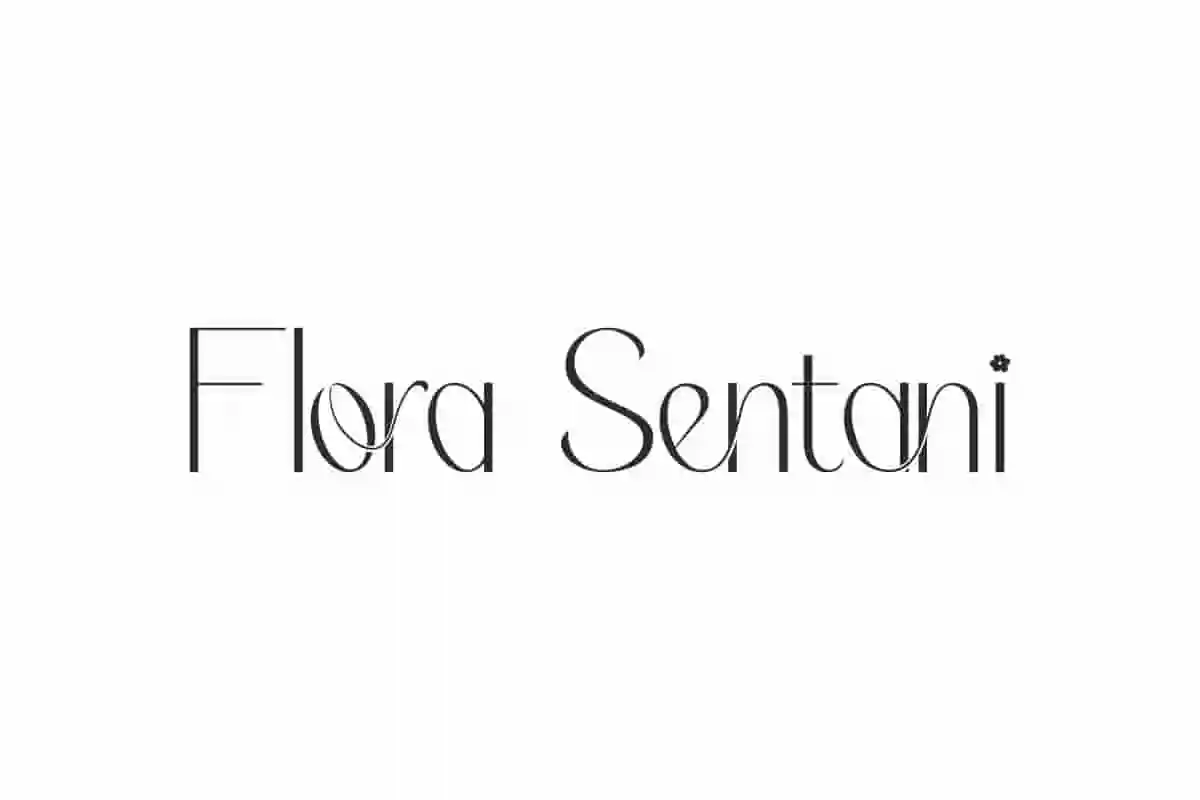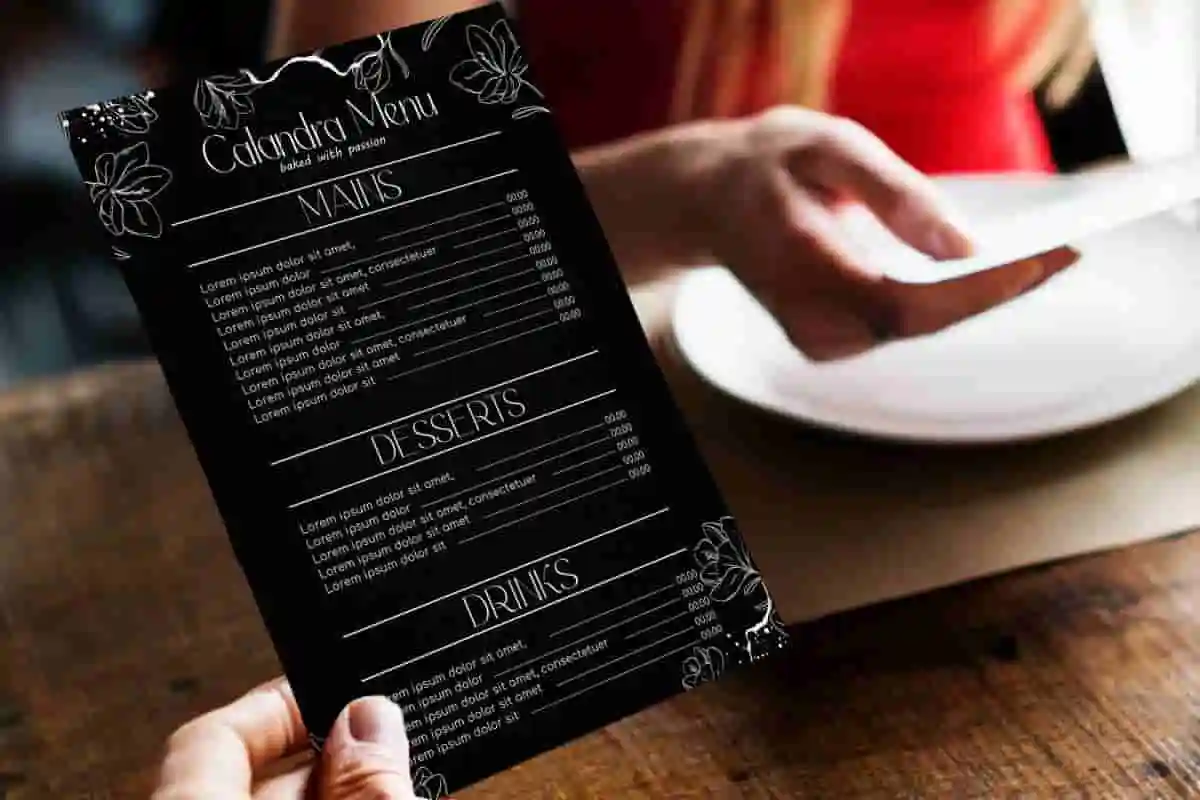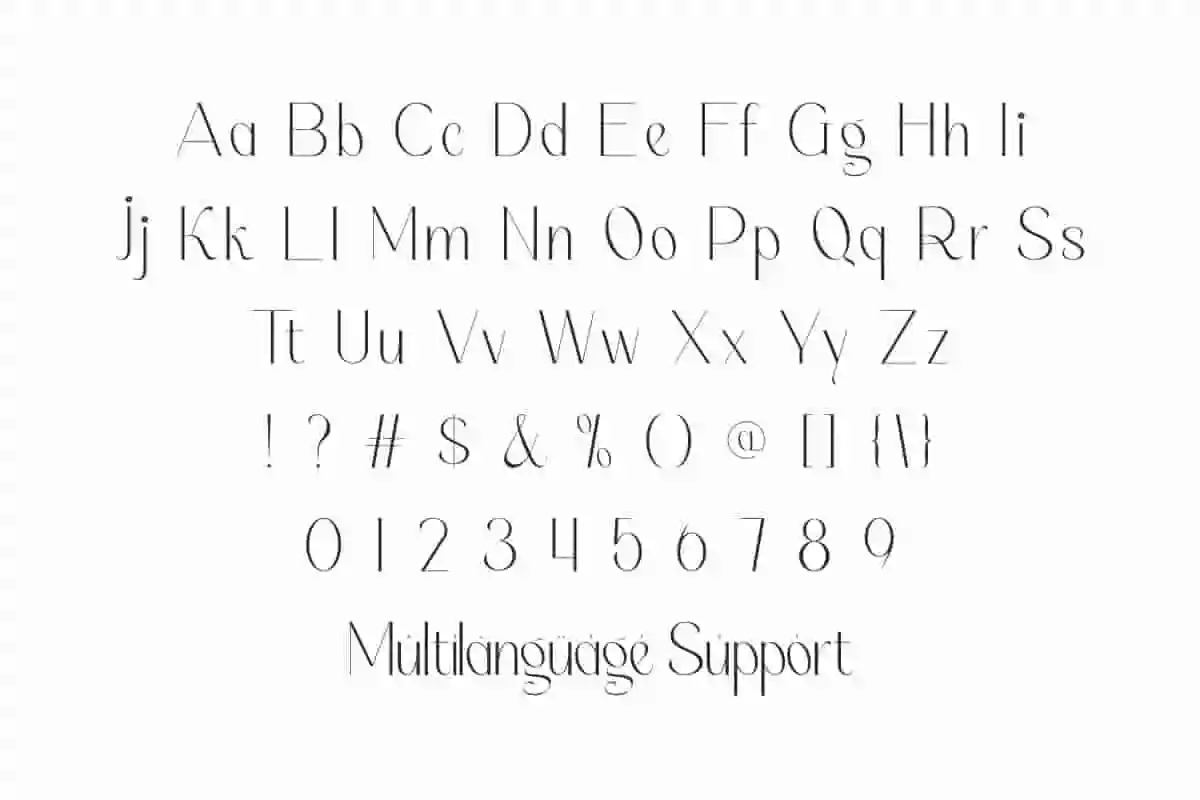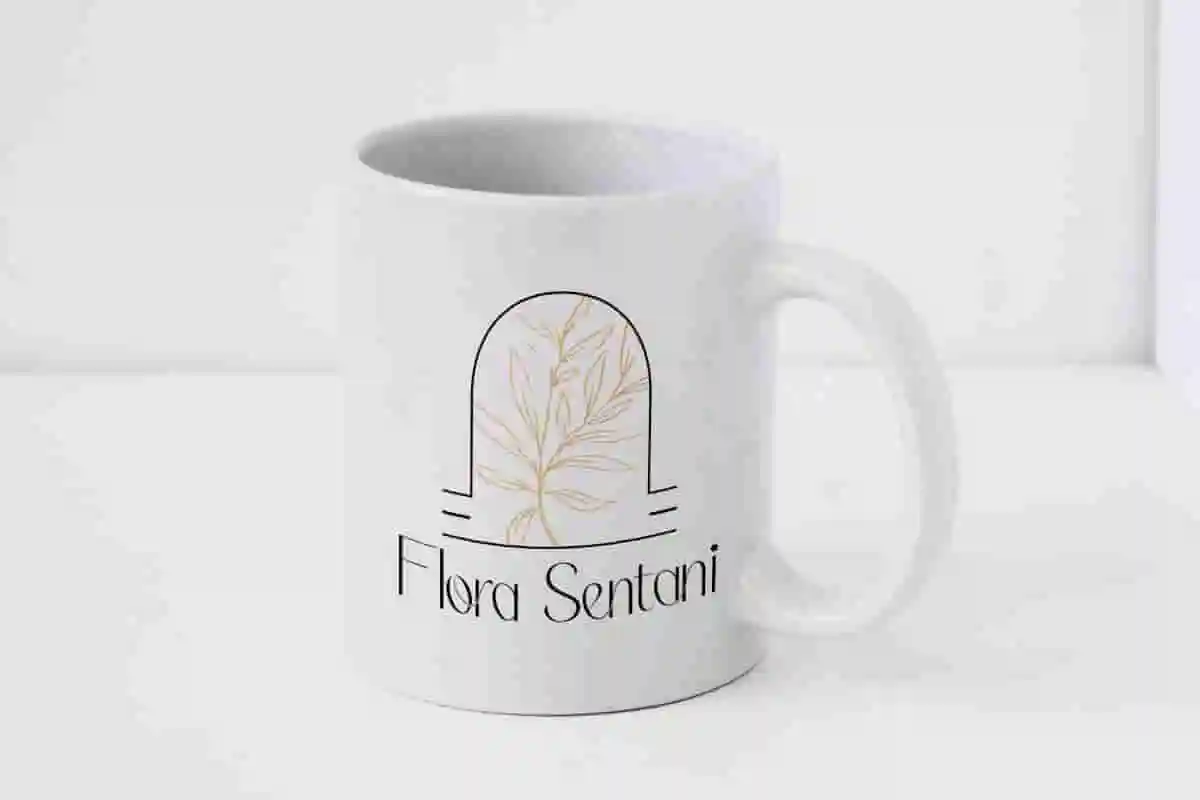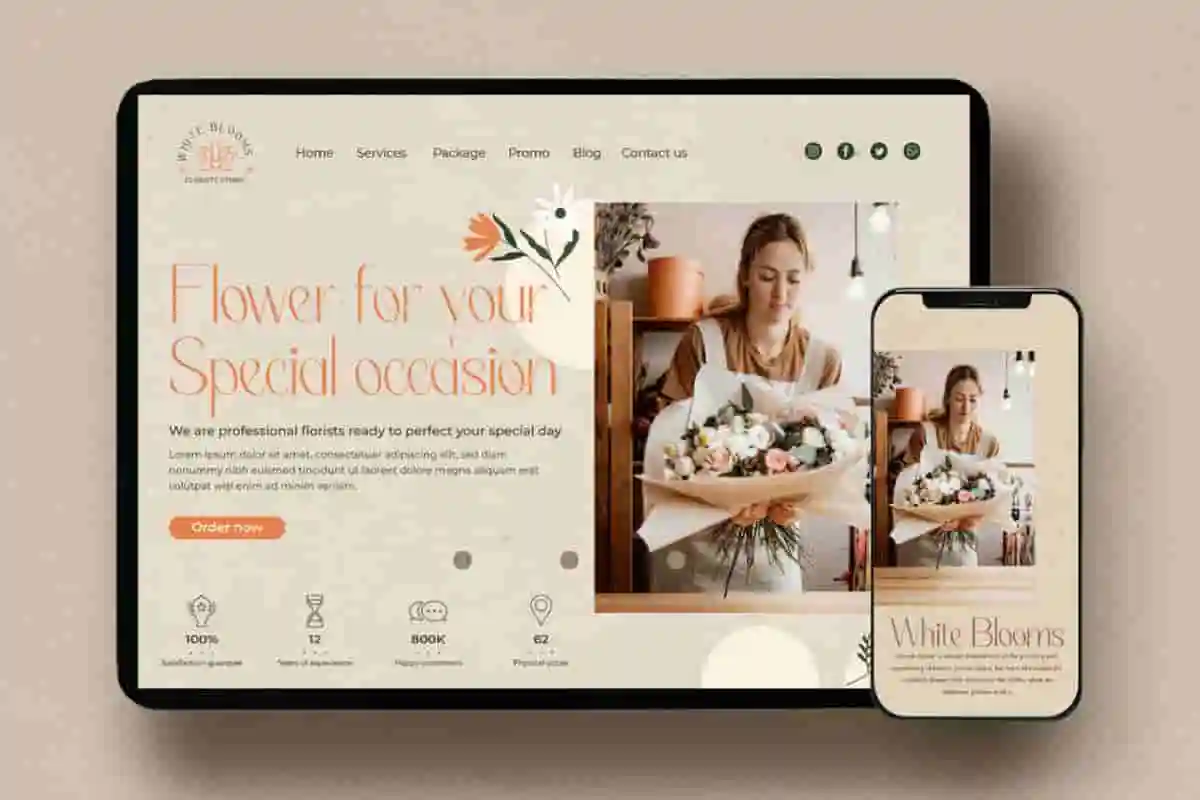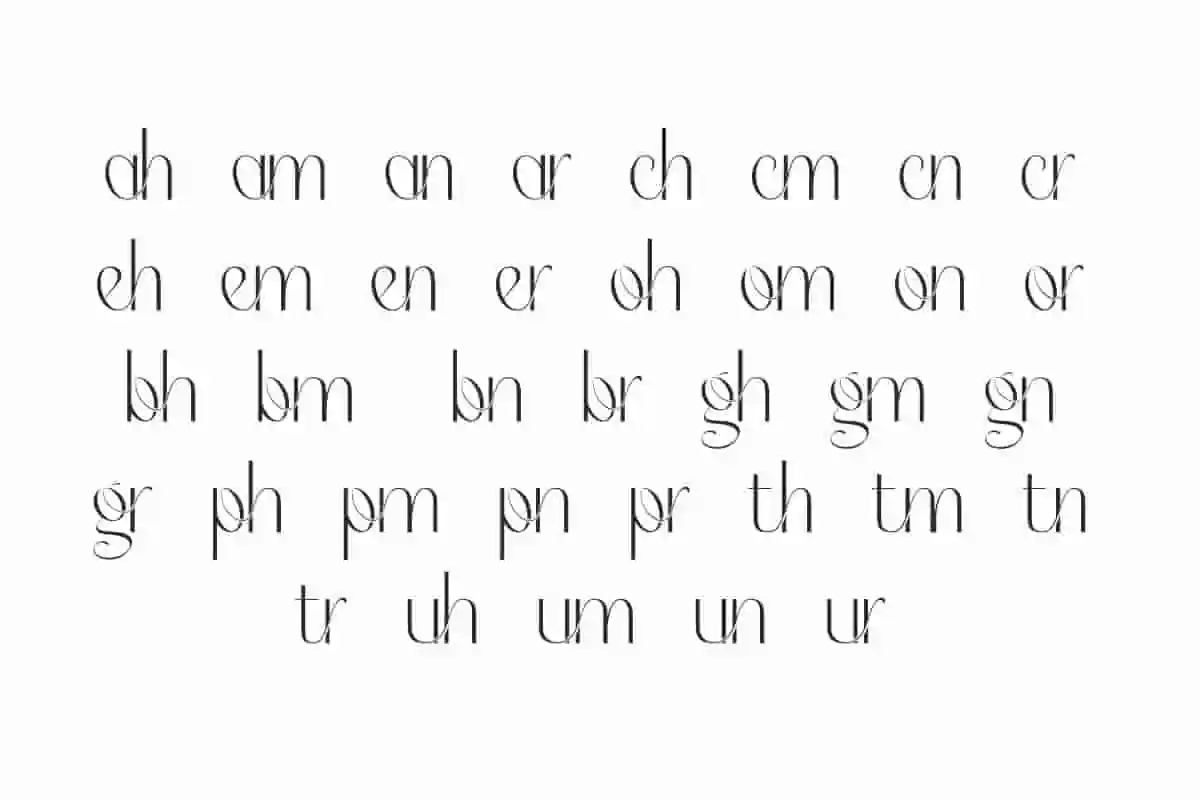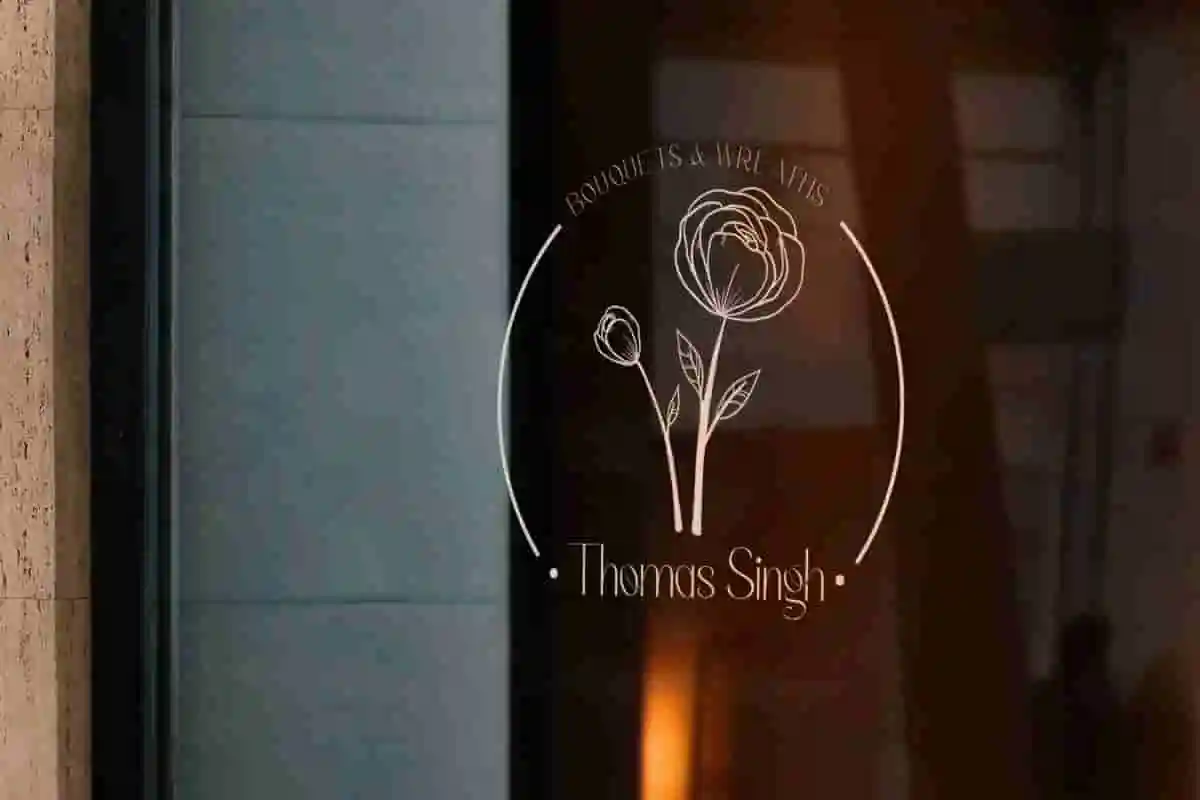
Flora Sentani Font
Flora Sentani Font is a flawless elegant display font with a simple yet stunning style. It’s versatile for brand identities, and anything that needs an exotic or sophisticated font.
Flora Sentani Font is a flawless elegant display font with a simple yet stunning style. It’s versatile for brand identities, and anything that needs an exotic or sophisticated font. It looks light so it creates a modern touch for your business, such as architect, author, boutique, cosmetic, fashion designer, florist, glassware, interior design, jewelry, perfume maker, photography, printing, publishing, real estate, restaurant, retail, skincare, social media content, spa salon, wedding, writer, and many more!
Flora Sentani Font includes full set of Uppercase and Lowercase Basic Characters, Number, Punctuation, and Symbol. It is charming like a flower which helps to beautify your design, such as apps, blogs, brand logo, cover, header, invitation, label, pamphlet, packaging design, poster, quote, screen print, signage, stationery, sticker, title, watermark, website, and much more.